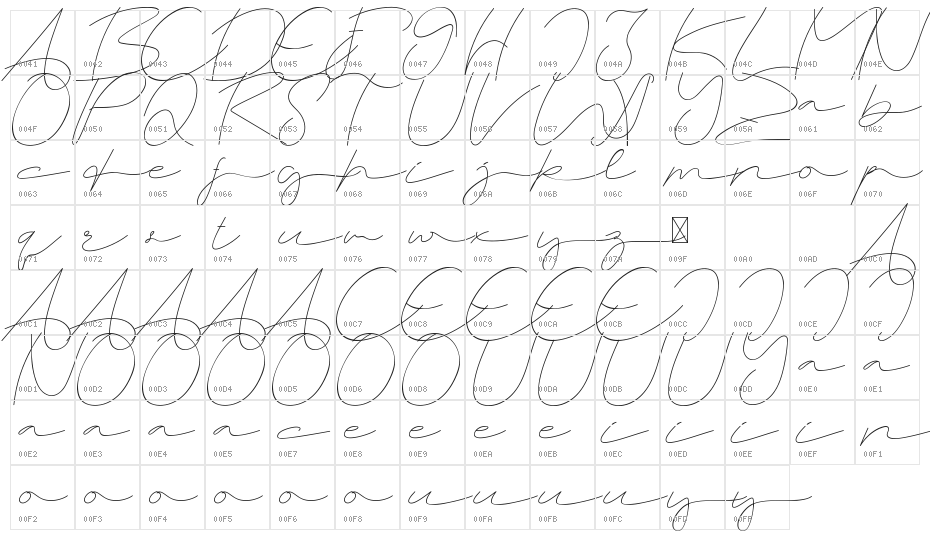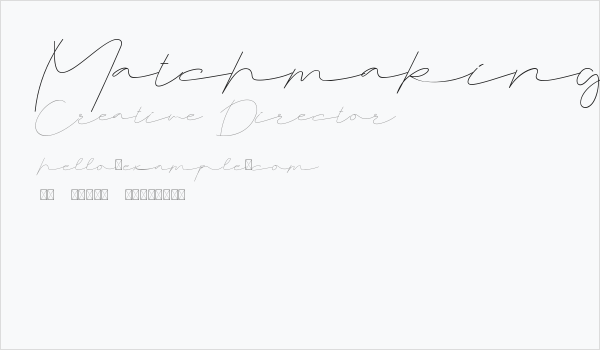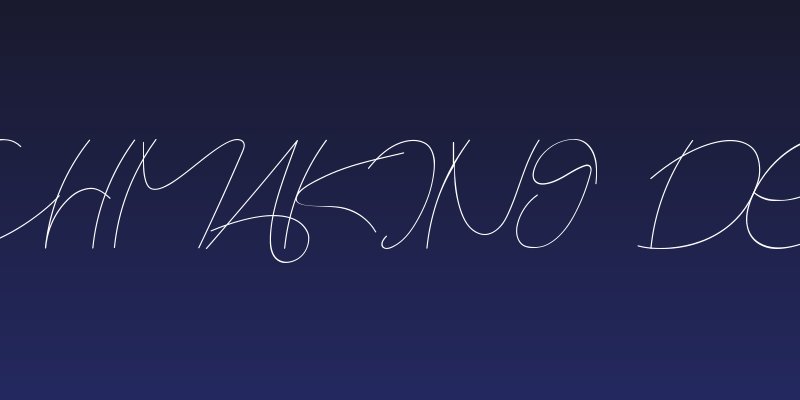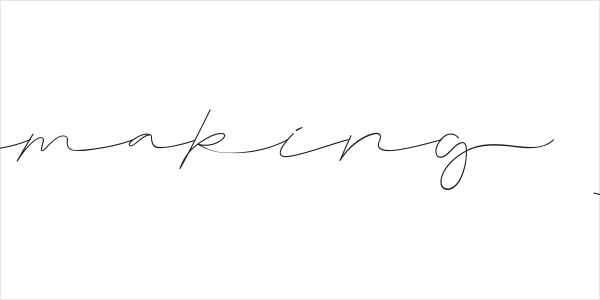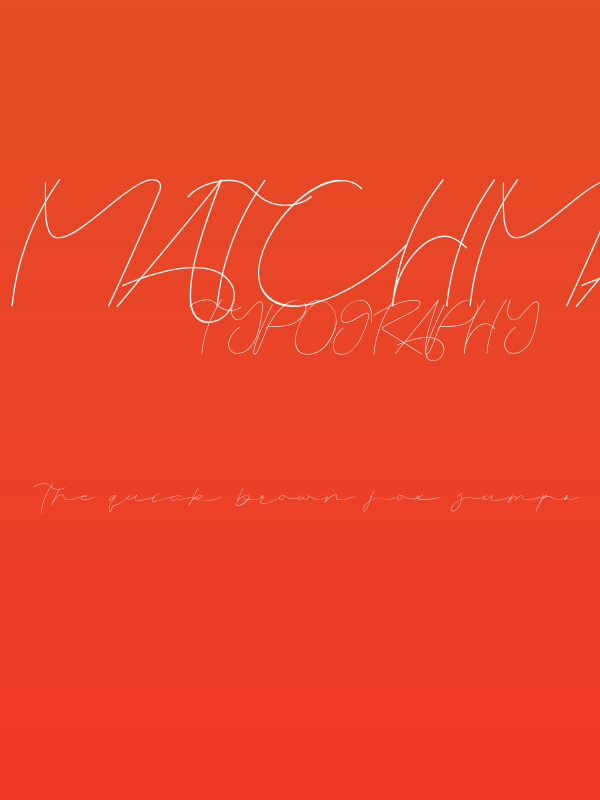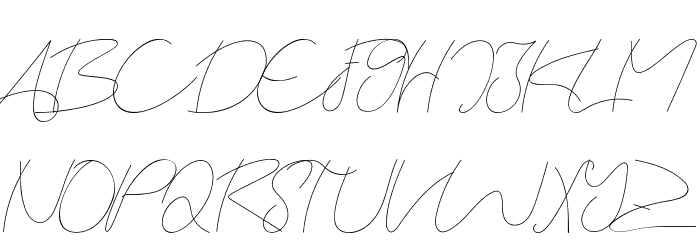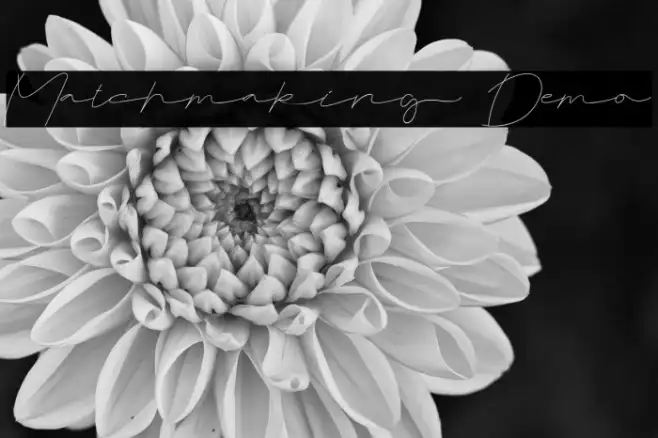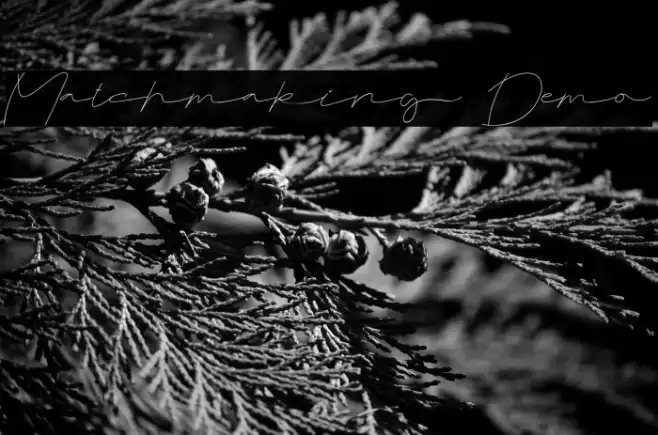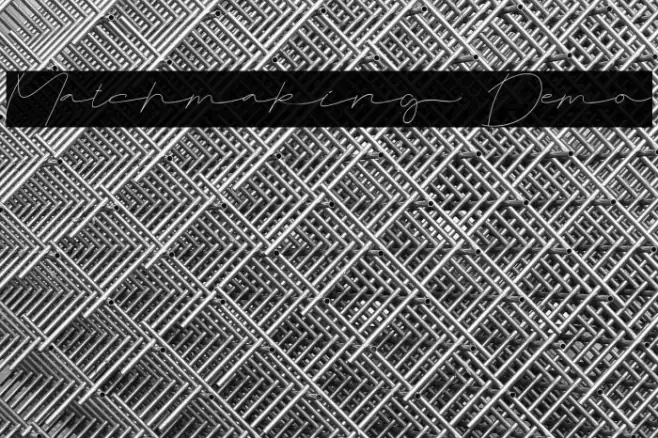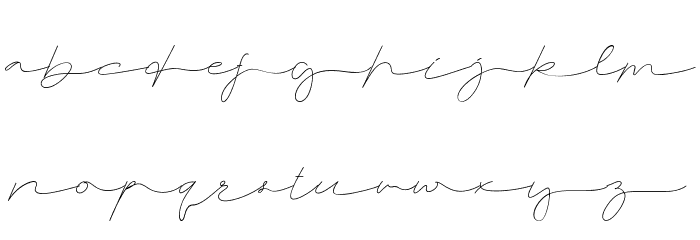
Matchmaking Demo Font
Matchmaking Demo Description
This font features a delicate and flowing script style, characterized by its elegant and continuous lines that mimic the fluidity of handwriting. The letters are interconnected, creating a seamless and sophisticated appearance. The strokes are thin and consistent, providing a graceful and airy feel. This font exudes a sense of elegance and refinement, making it suitable for formal and decorative purposes. Its cursive nature adds a personal touch, reminiscent of handwritten notes or invitations.
| Proposed Projects | Ideal for wedding invitations, greeting cards, personal branding, and elegant packaging design. |